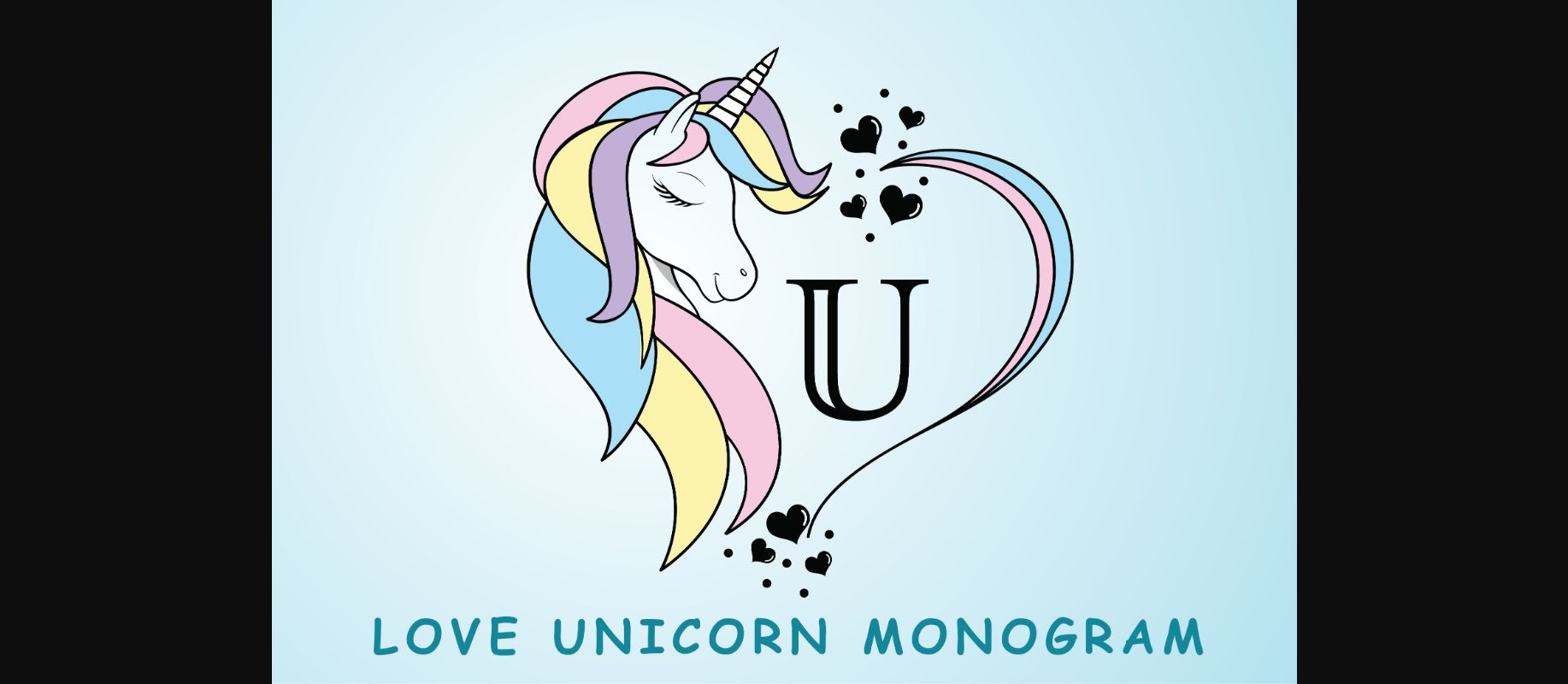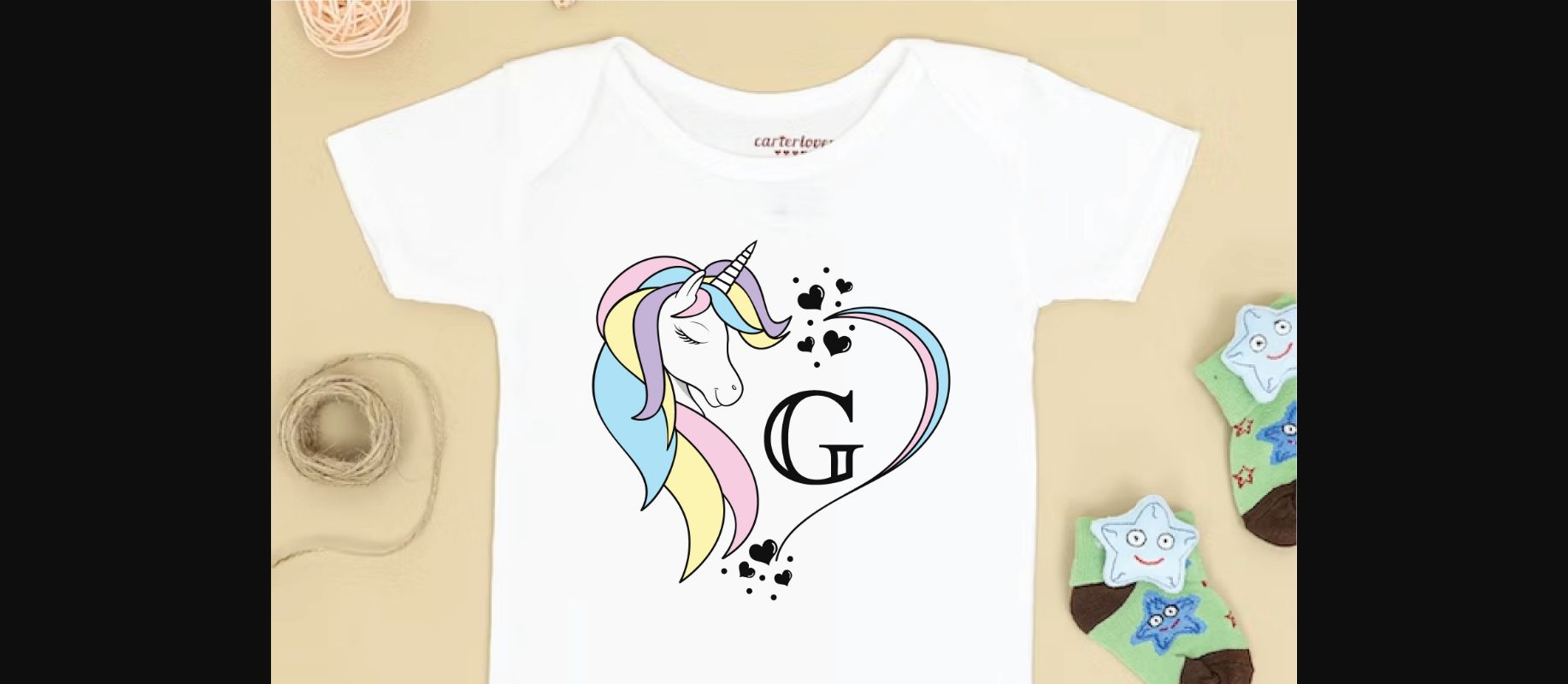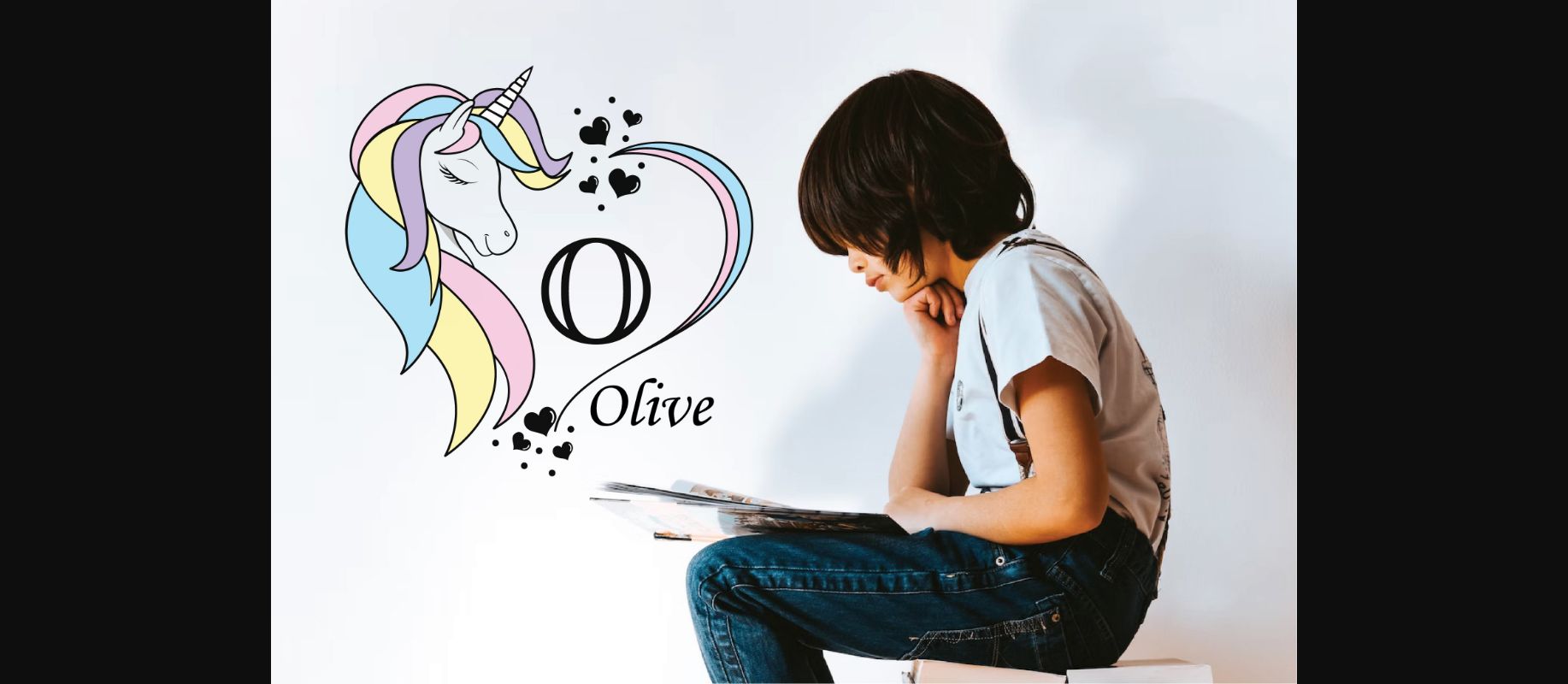
About Love Unicorn Monogram Font
Love Unicorn Monogram is a cute decorative font, featuring lovely ornaments. Fall in love with its authentic feel and use it to create gorgeous stationary art, eye-catching social media posts, and cute greeting cards.